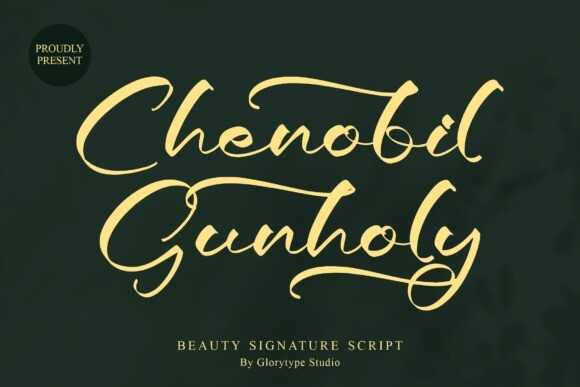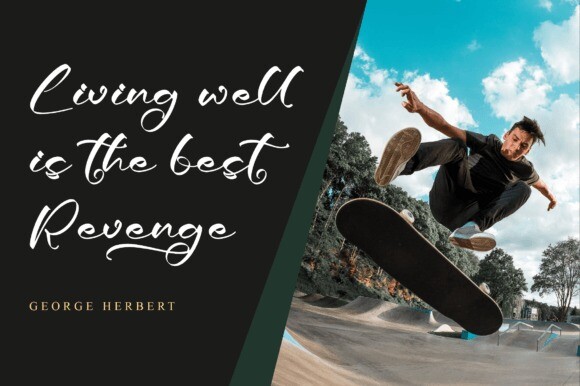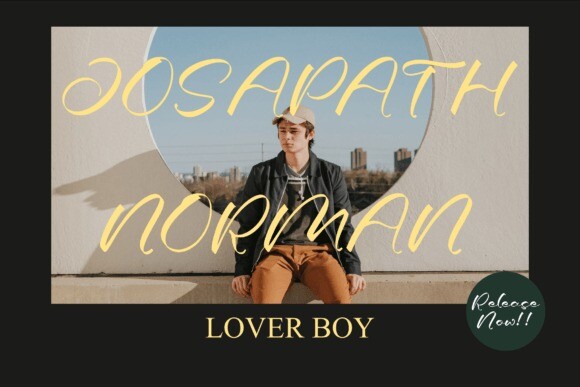
Chenobil Gunholy Font
Chenobil Gunholy – Beauty Signature Script , from Glorytype Studio, suitable for any projects such as: logos, branding projects, homeware designs, product packaging, mugs, quotes, posters, shopping bags, t-shirts, book covers, name card, invitation cards, greeting cards, label, photography, watermark, special events, and all your other lovely projects that need a beautiful script taste.